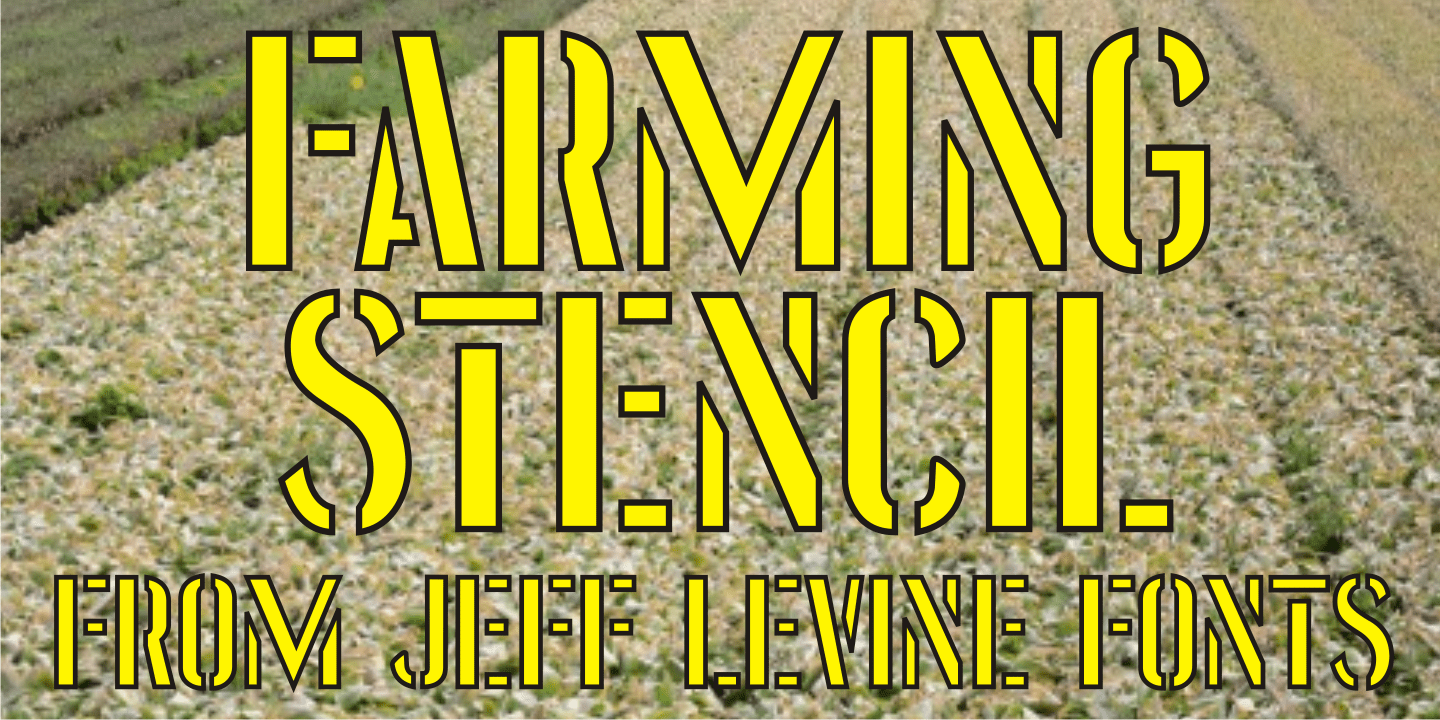
Farming Stencil
Examples of Australian brass stencils used for baling form the basis of Farming Stencil JNL. The hand-cut look of this typeface gives a more casual approach to a standard stencil design.
Farming Stencil JNL Regular by Jeff Levine Fonts